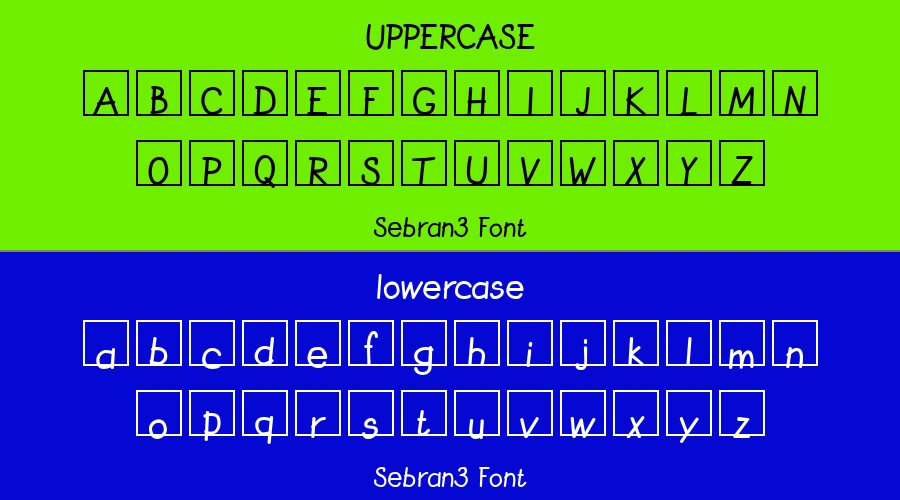
About Sebran3 Font
When typographic excellence matters most, Sebran3 Font delivers through its thoughtful blend of impactful forms and brand presence. Specially crafted for event branding, it offers the distinctiveness and professional authority required for sophisticated design work. Every detail serves a purpose.
The character set showcases thoughtful details like structural clarity alongside functional terminal forms. This proves especially valuable in hero imagery, where overlay performance directly influences results. Particular attention was paid to aperture size and educational suitability during development.